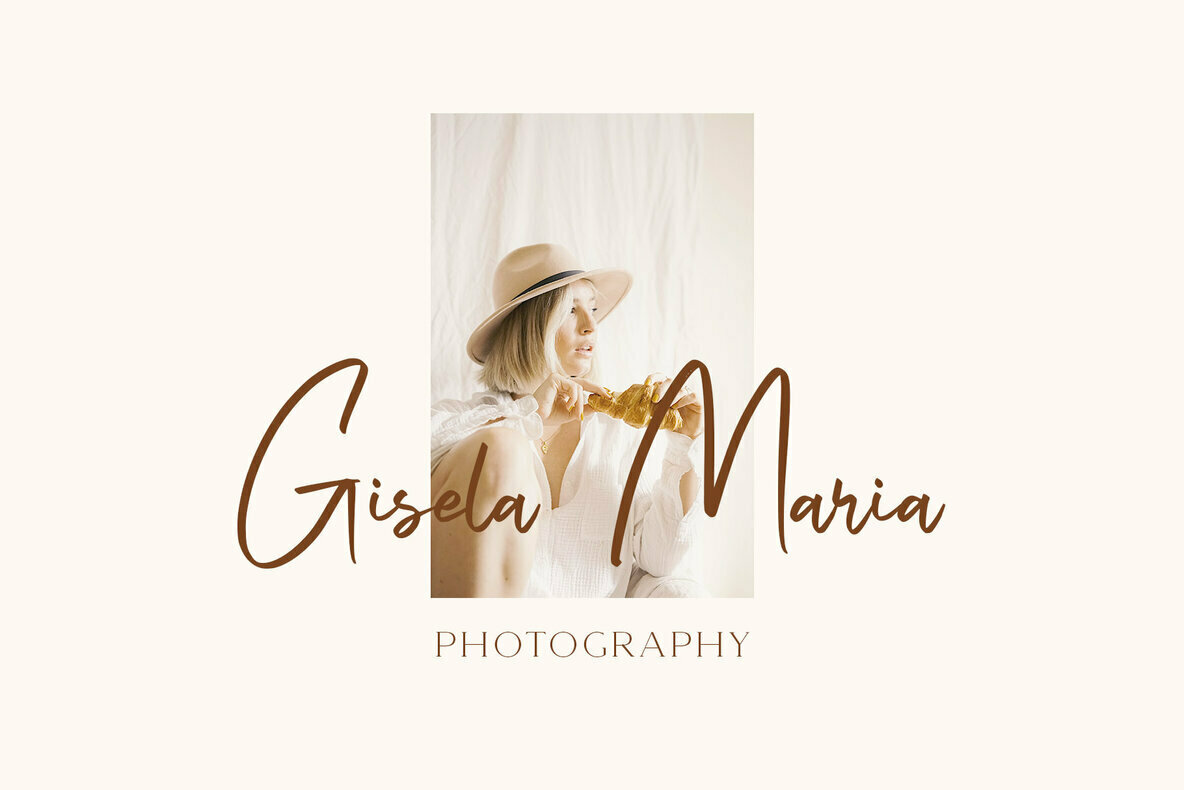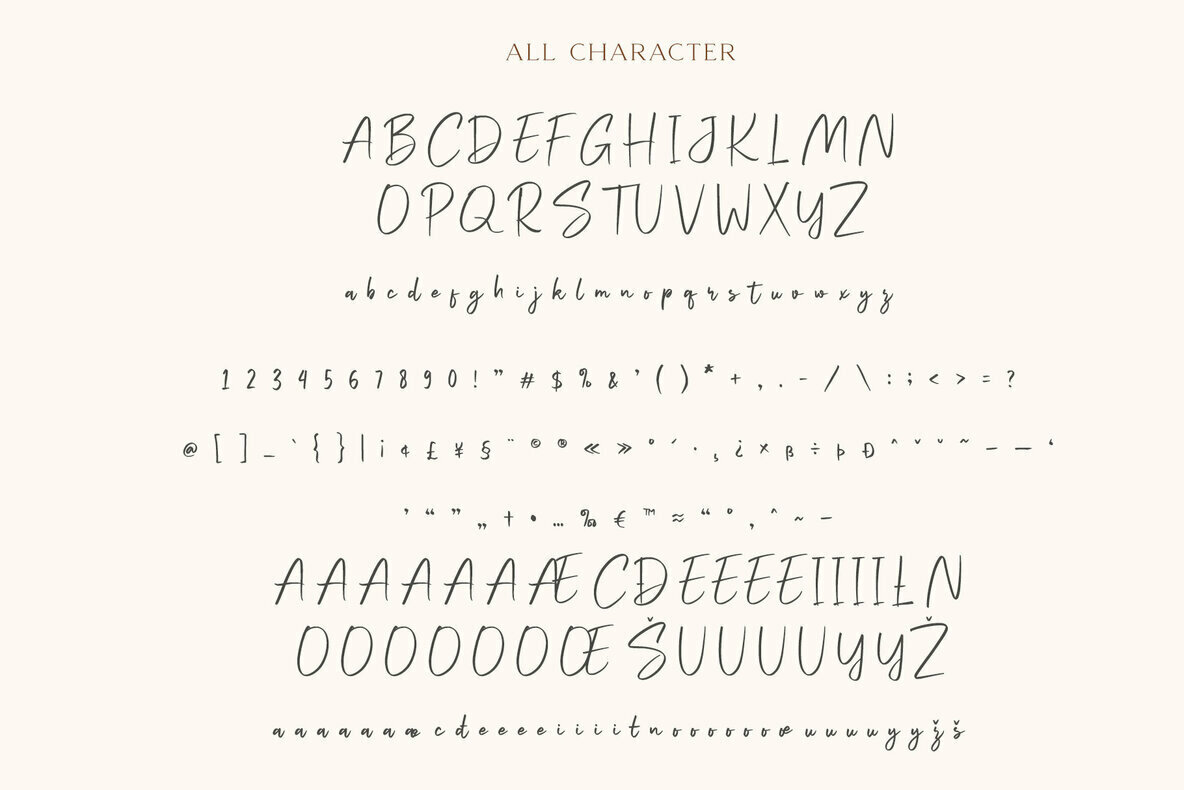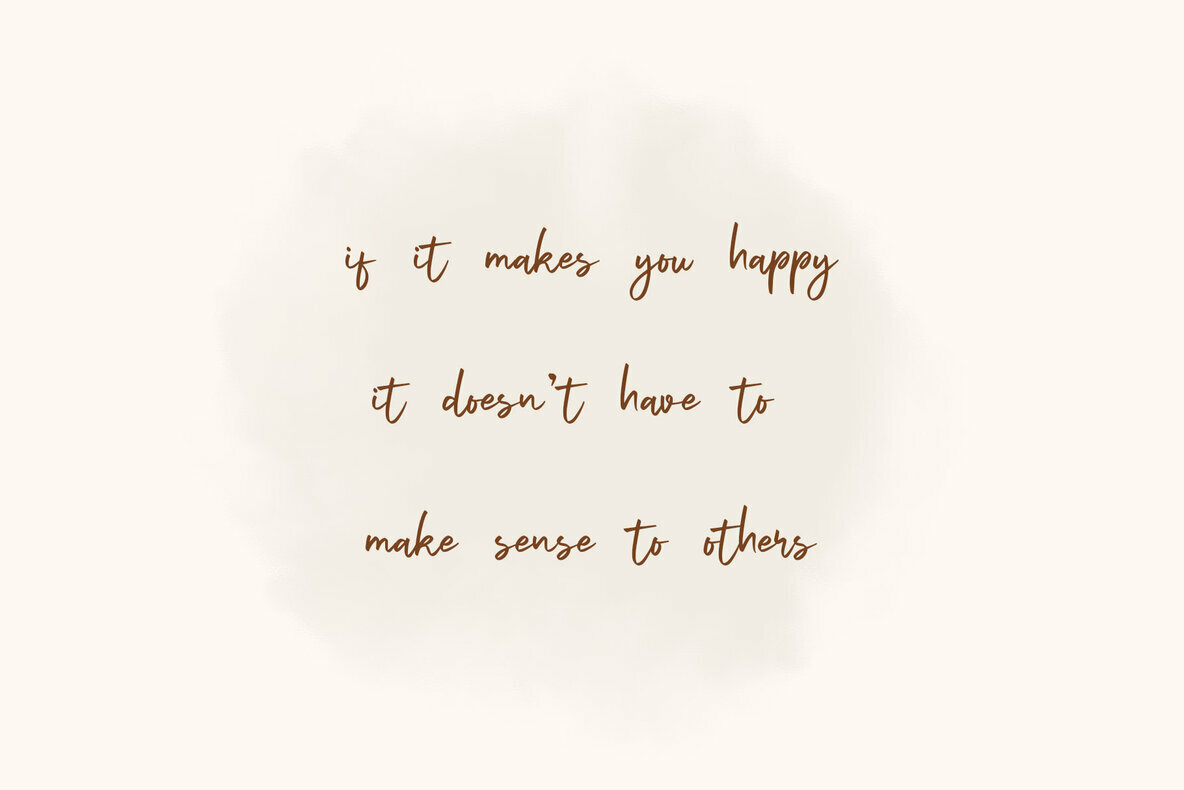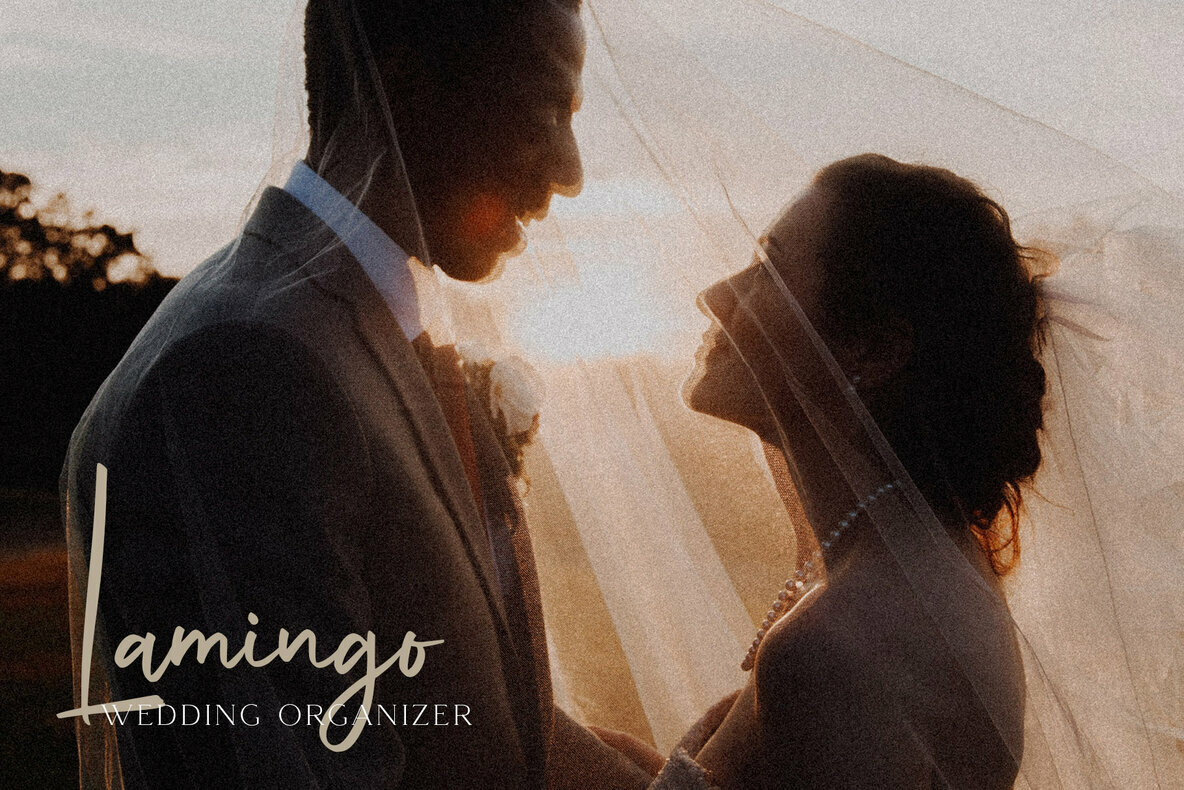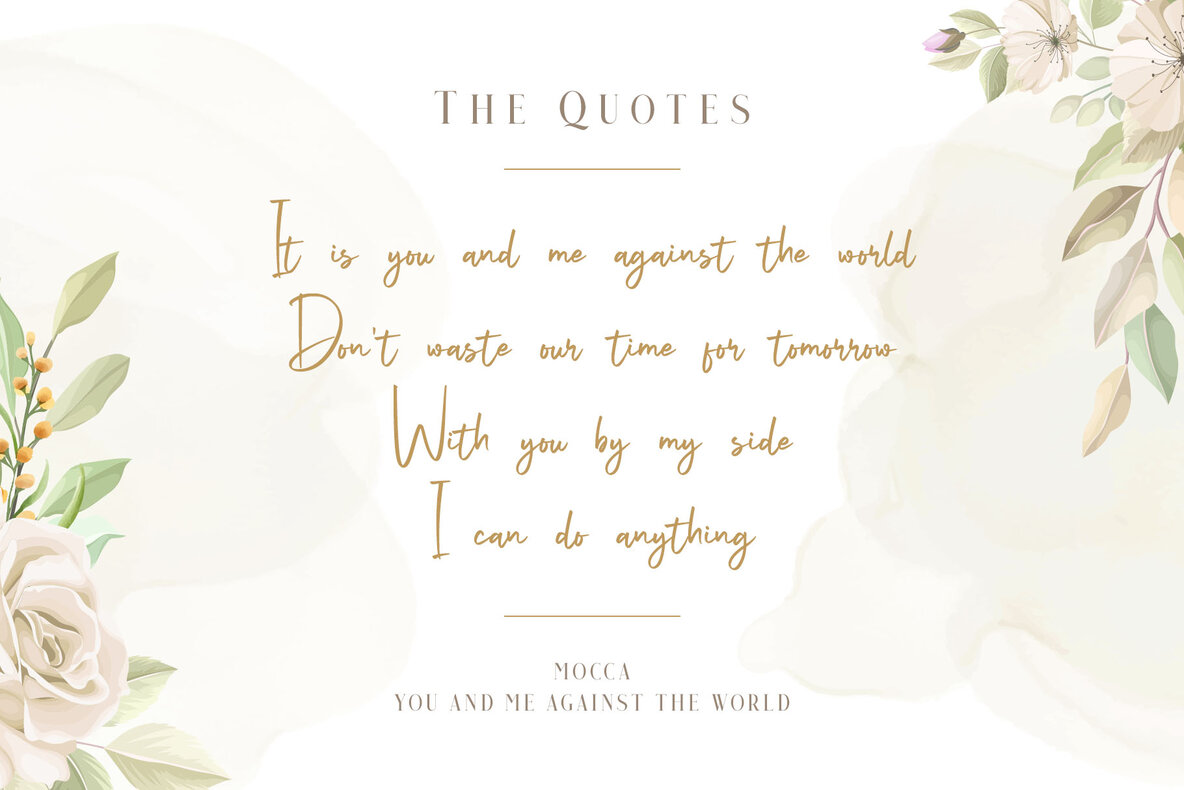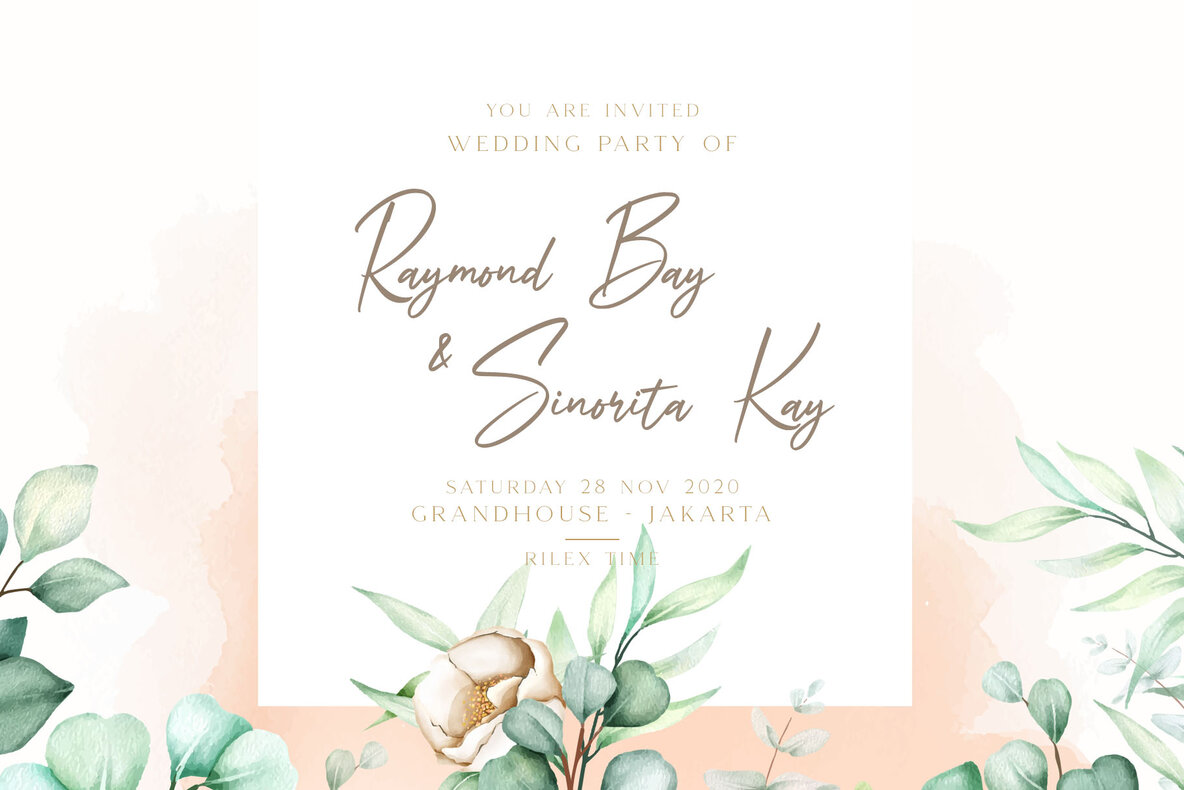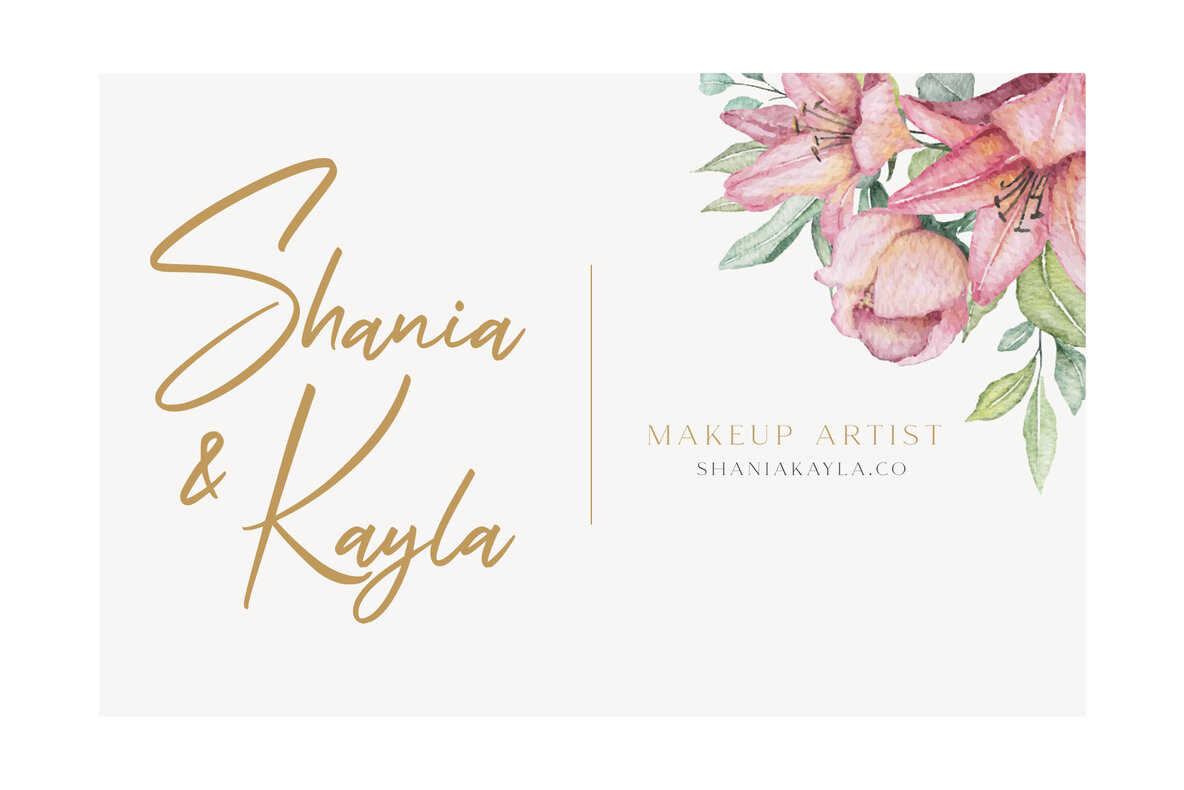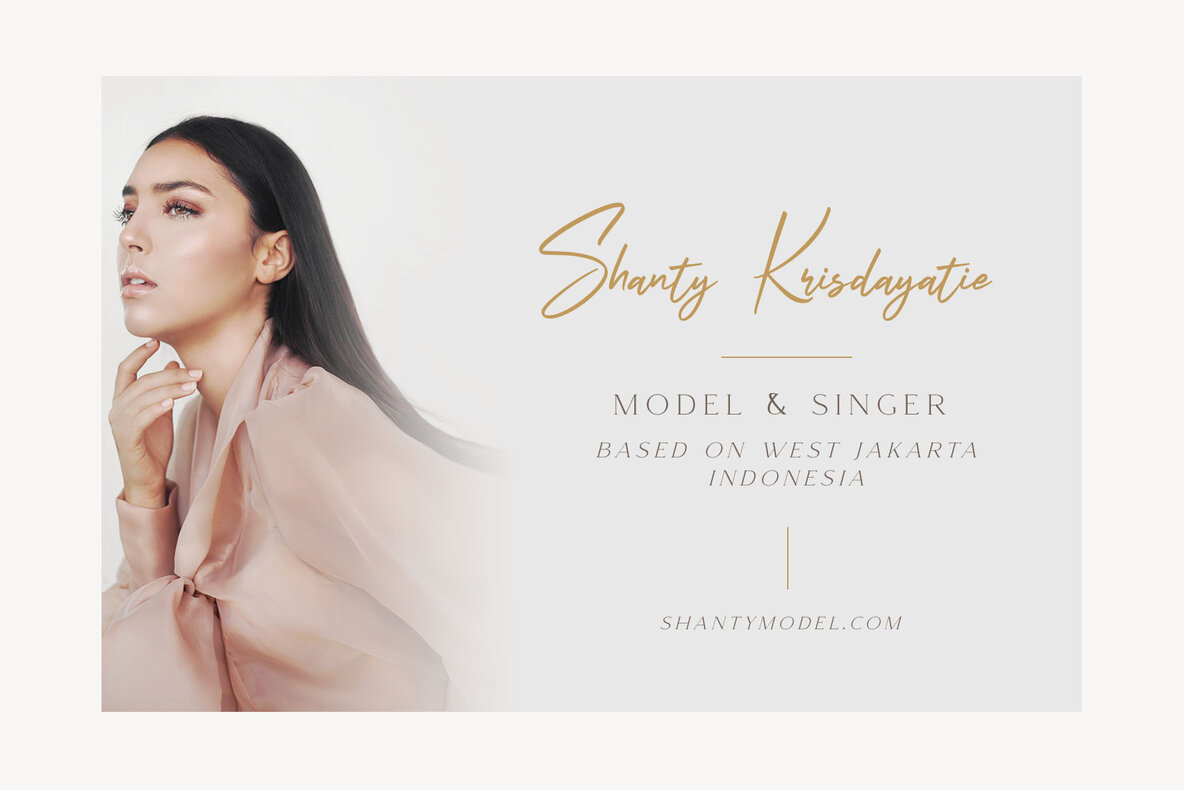
Signatey Font
Signatey captures the essence of authentic handwriting, presenting a modern script font ideal for a sophisticated touch. Perfect for fashion and e-commerce brands, trend blogs, and wedding boutiques, this font conveys an upscale and chic vibe in any design context.Signatey: A Modern Script Font with Chic Appeal
Versatile Uses